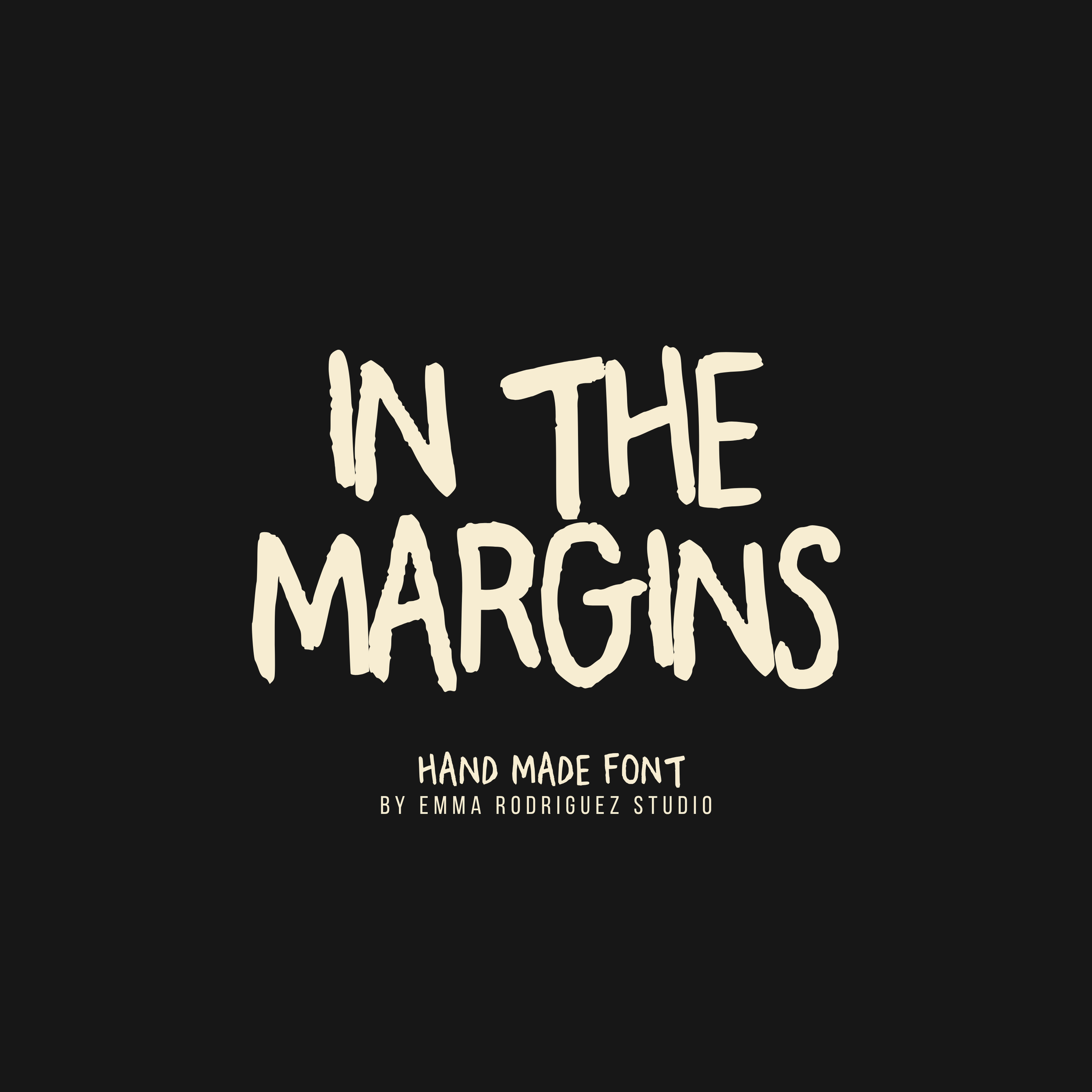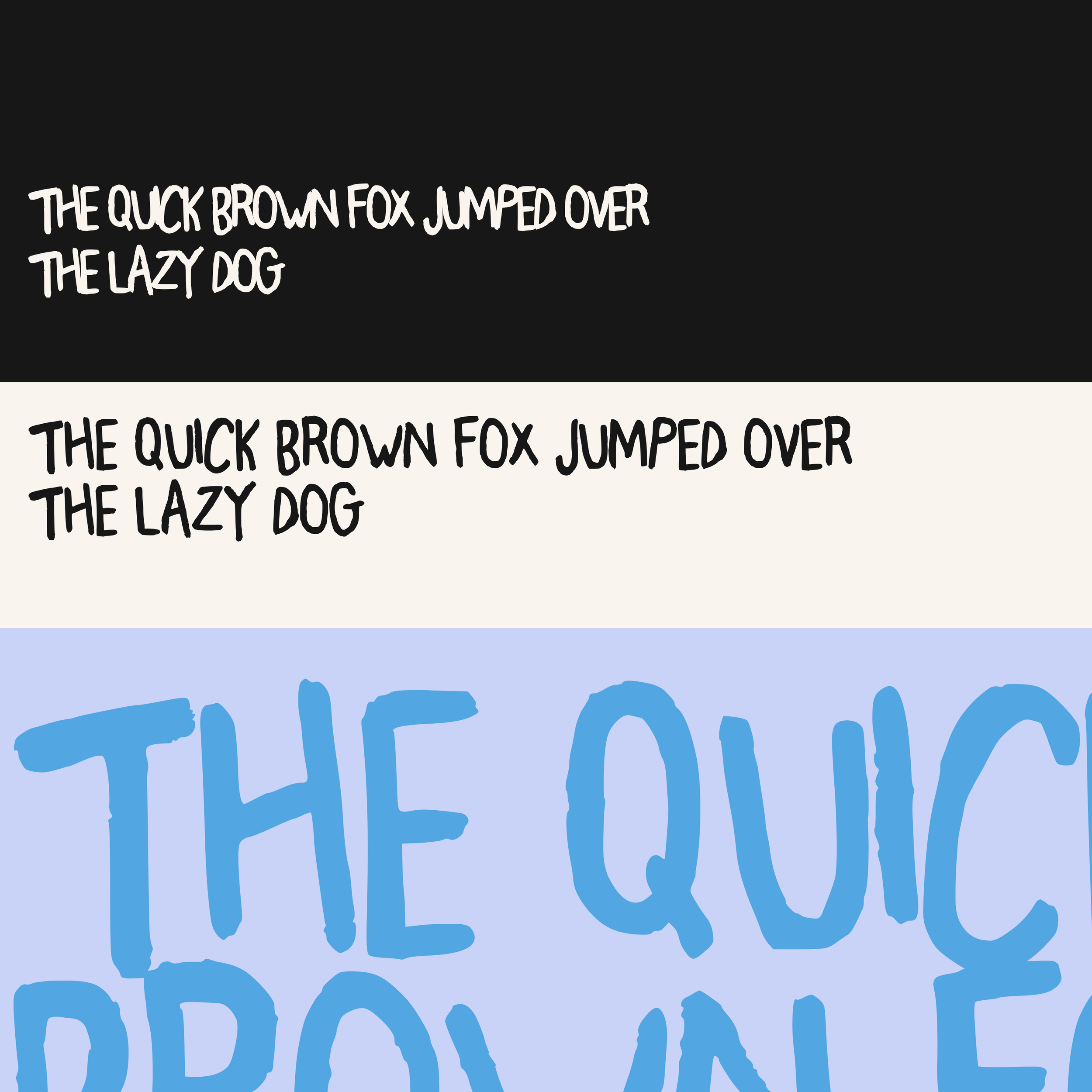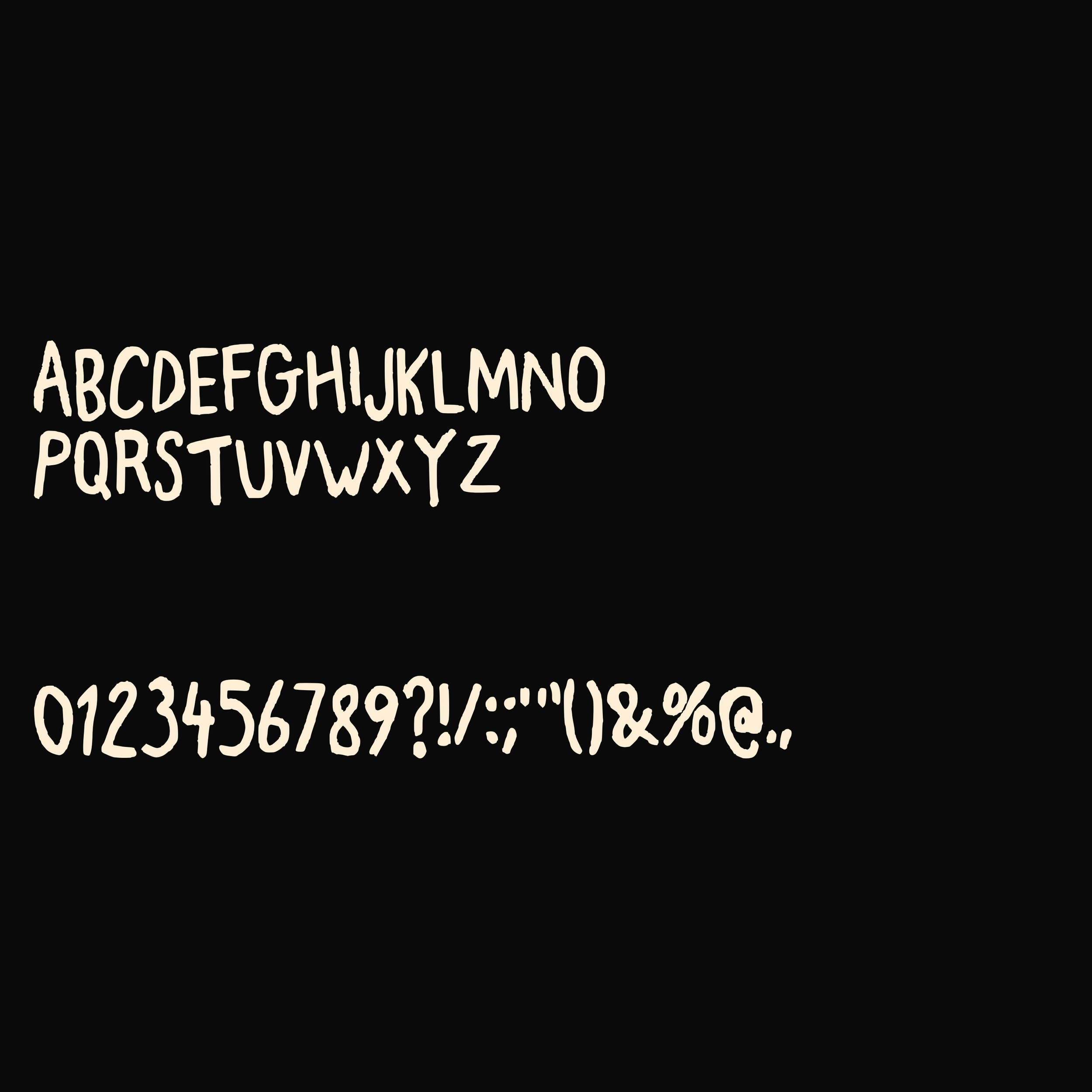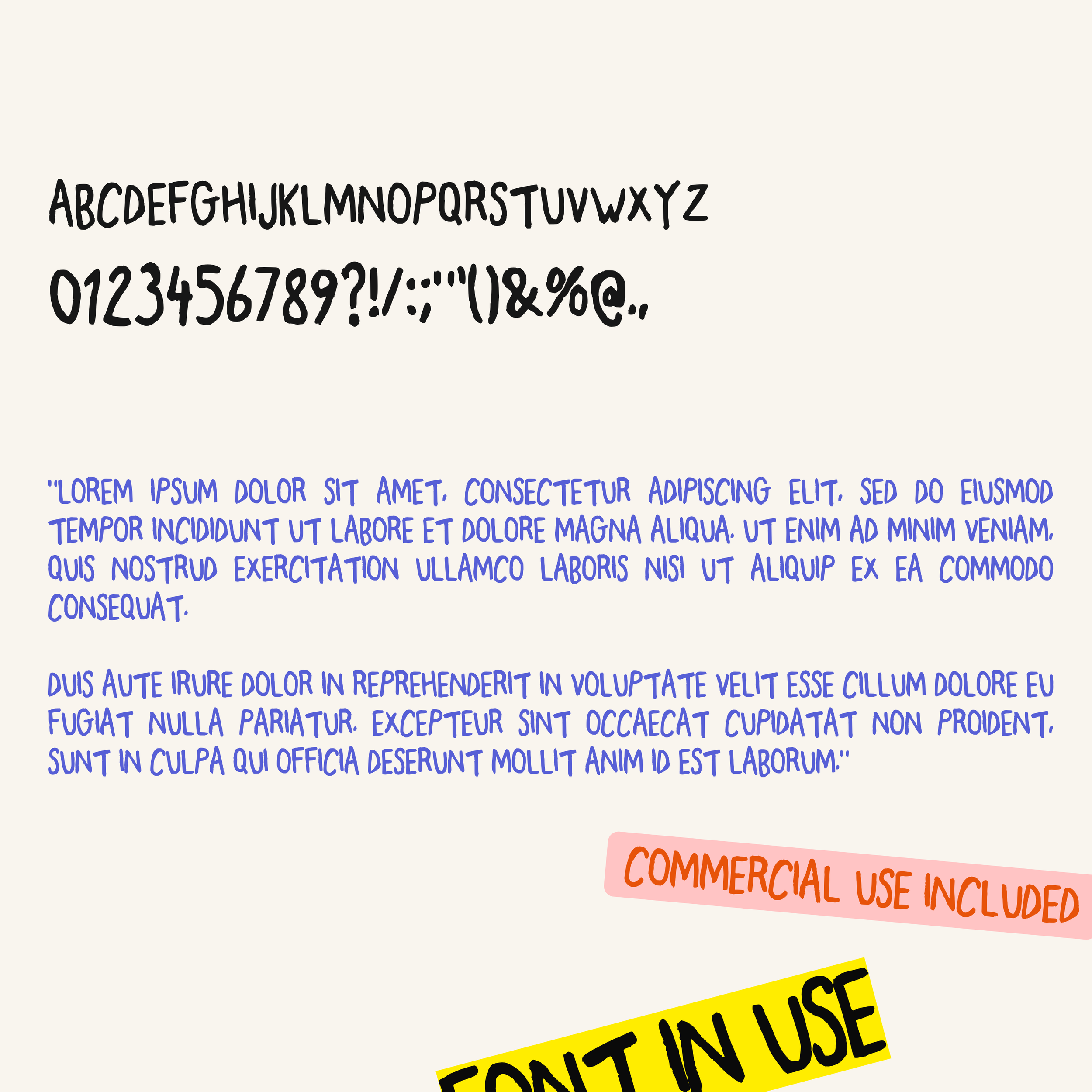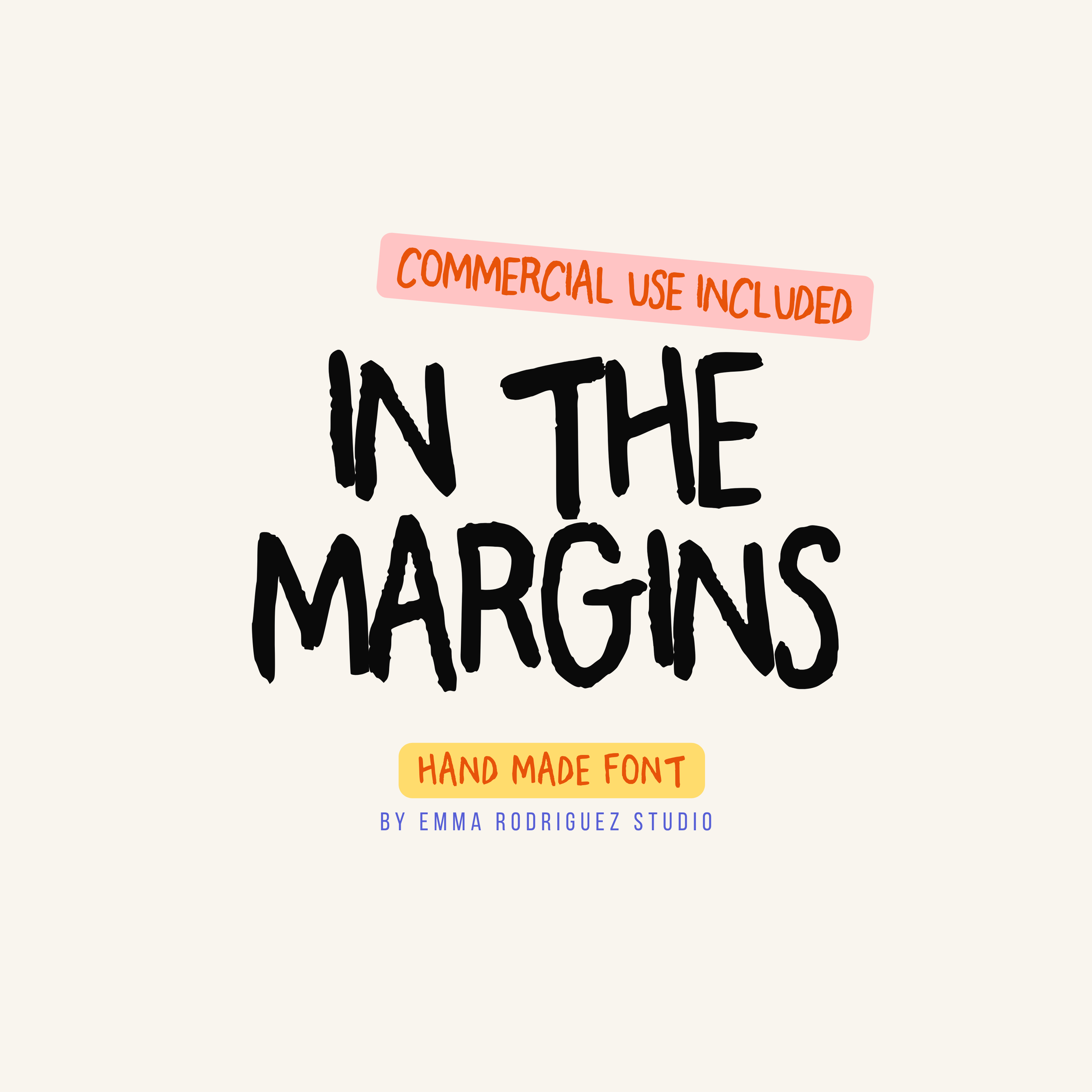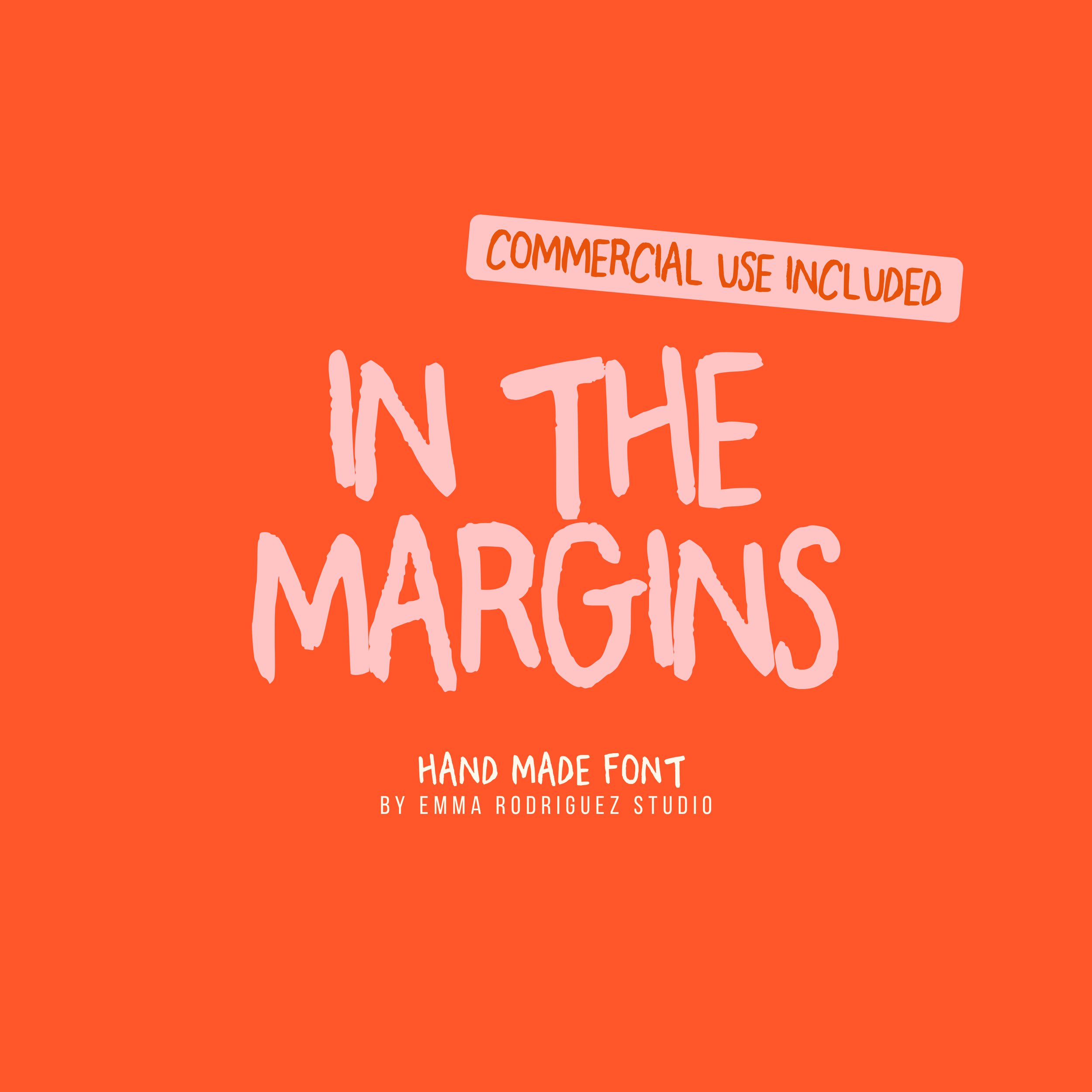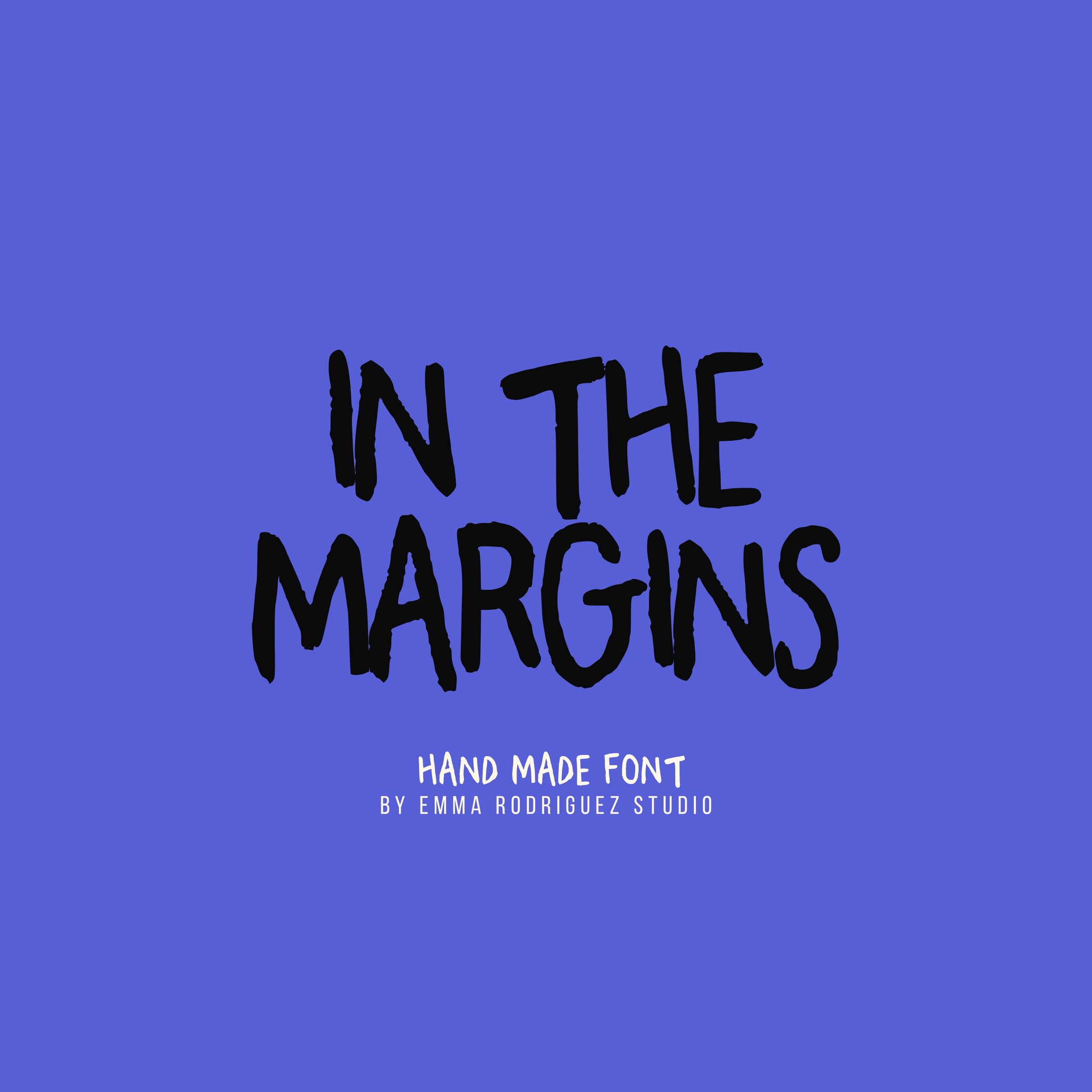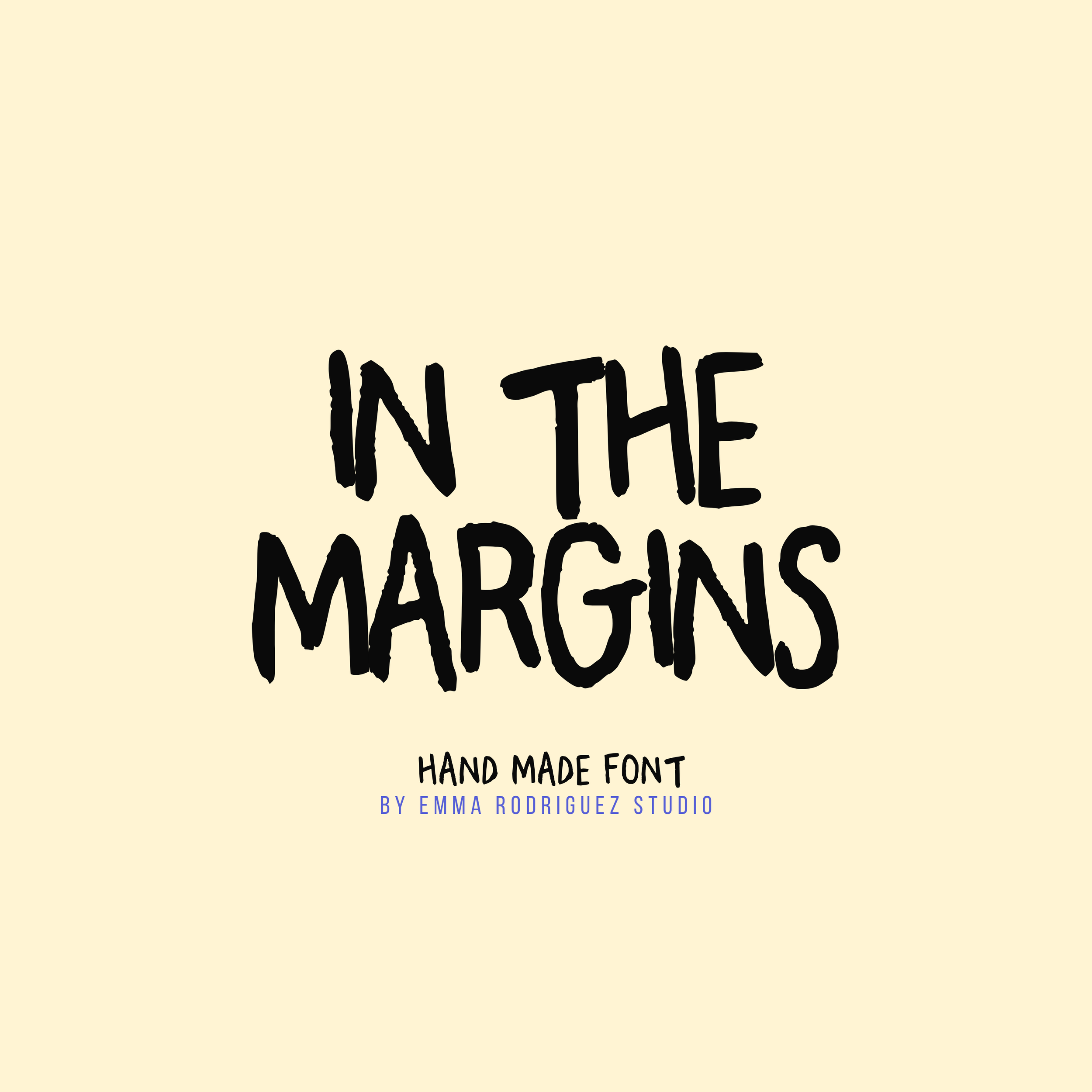
In The Margins Font - Handwritten Uppercase Font
Meet In The Margins, a bold hand drawn display font inspired by sketchbooks, marker pens, notebook doodles, and expressive handwritten lettering. With textured strokes, organic imperfections, and confident letterforms, it brings a raw creative energy that feels authentic and full of character.
Designed to capture the look of handwritten notes and quick marker sketches, In The Margins balances rough texture with strong readability. Every letter feels naturally imperfect, giving your typography warmth and personality while remaining bold enough for headlines, branding, and packaging.
Whether you're creating logos, posters, editorial layouts, apparel graphics, social media content, product packaging, or creative client work, In The Margins adds a handmade touch that feels genuine rather than polished.
• Uppercase letters only
• Numbers and basic punctuation
The textured brush strokes and natural imperfections are intentional design features that give the font its authentic handmade appearance.
Fonts by Emma Rodriguez Studio are made to have personality. Expect naive shapes, wonky details, playful imperfections and type that doesn’t take itself too seriously. They’re not designed for clean, minimal branding. They’re for bold, quirky, maximalist projects that need something a little stranger, sillier and more expressive.